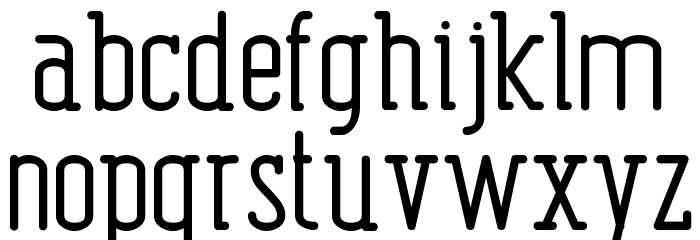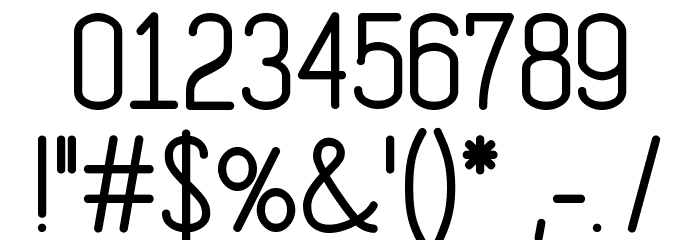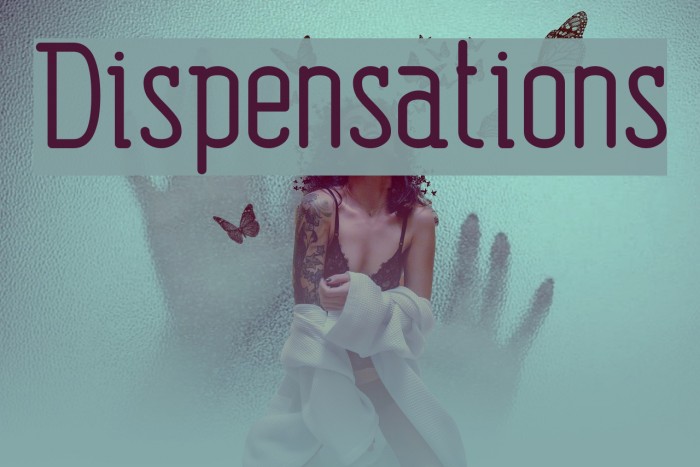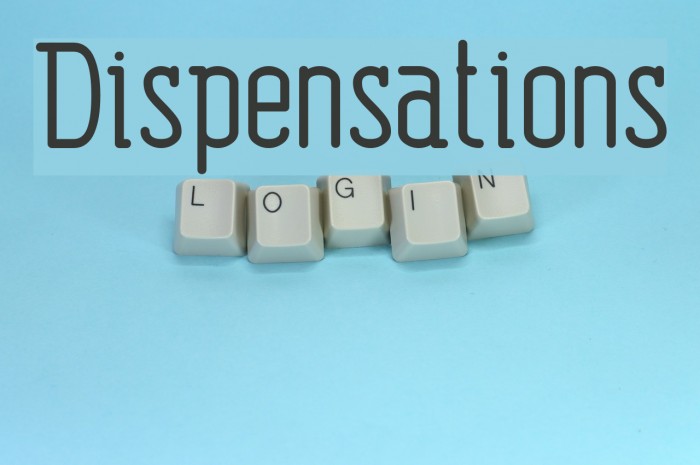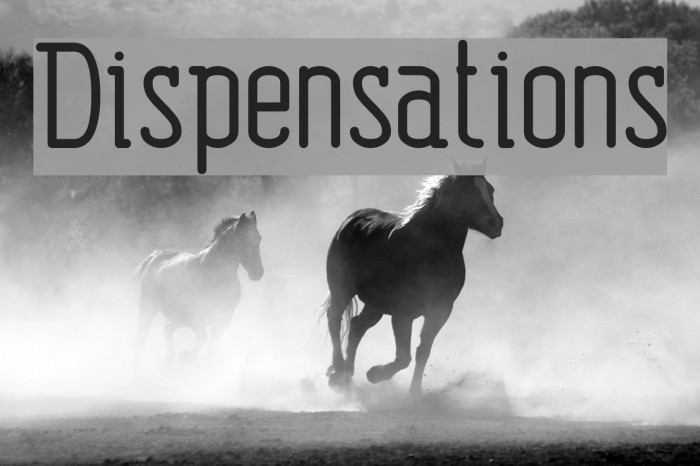
Dispensations Font
This font exhibits a clean and modern sans-serif style with a slight geometric influence. The characters are uniformly structured, providing a balanced and harmonious appearance. The uppercase letters are slightly taller than the lowercase, maintaining a consistent width that enhances readability. The numerals are proportional, aligning well with the overall design. Special characters are distinct and easily recognizable, adding to the font's versatility. The strokes are even, with minimal contrast, giving it a sleek and contemporary look suitable for various applications.
A clean, modern sans-serif font with geometric influences and uniform structure.